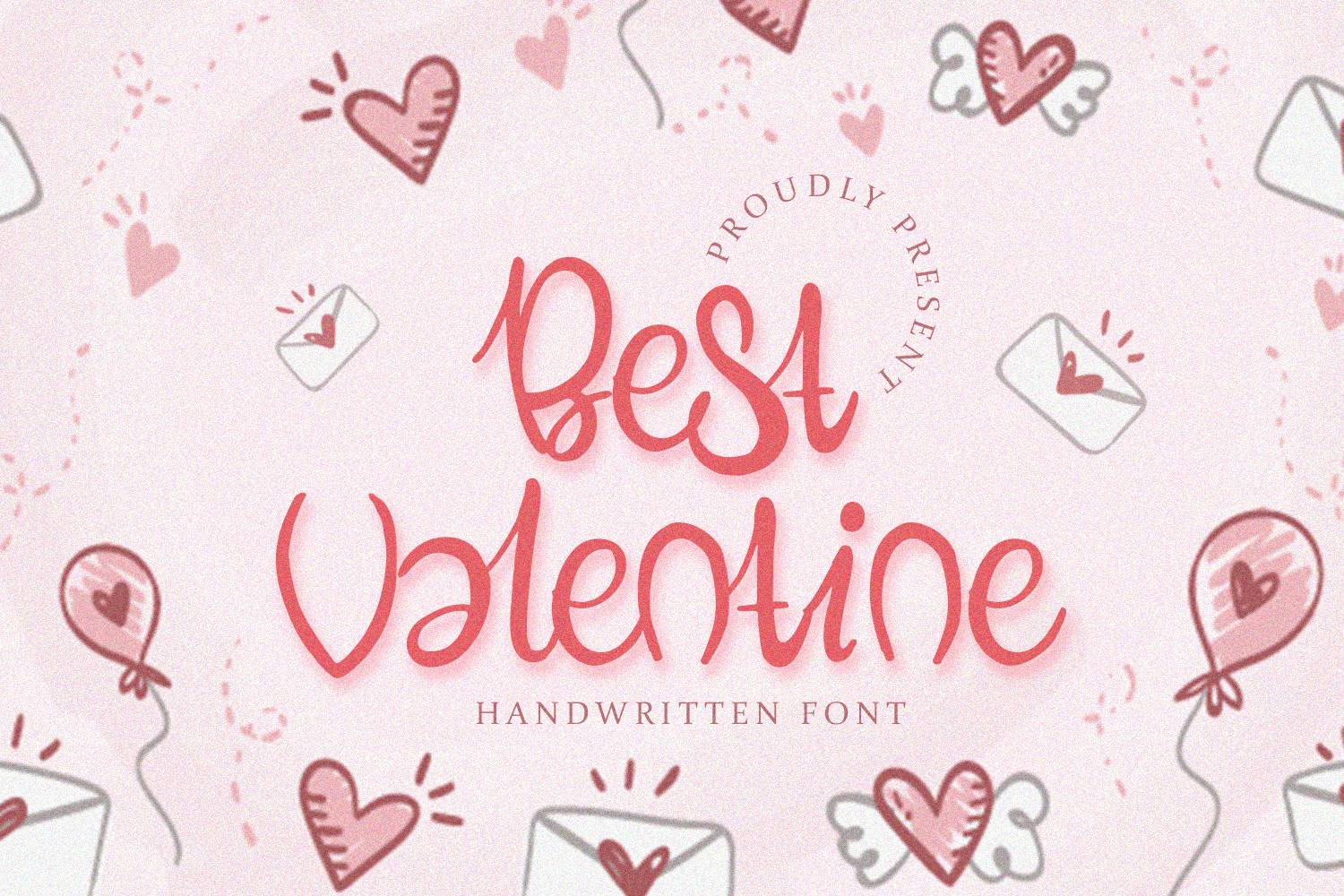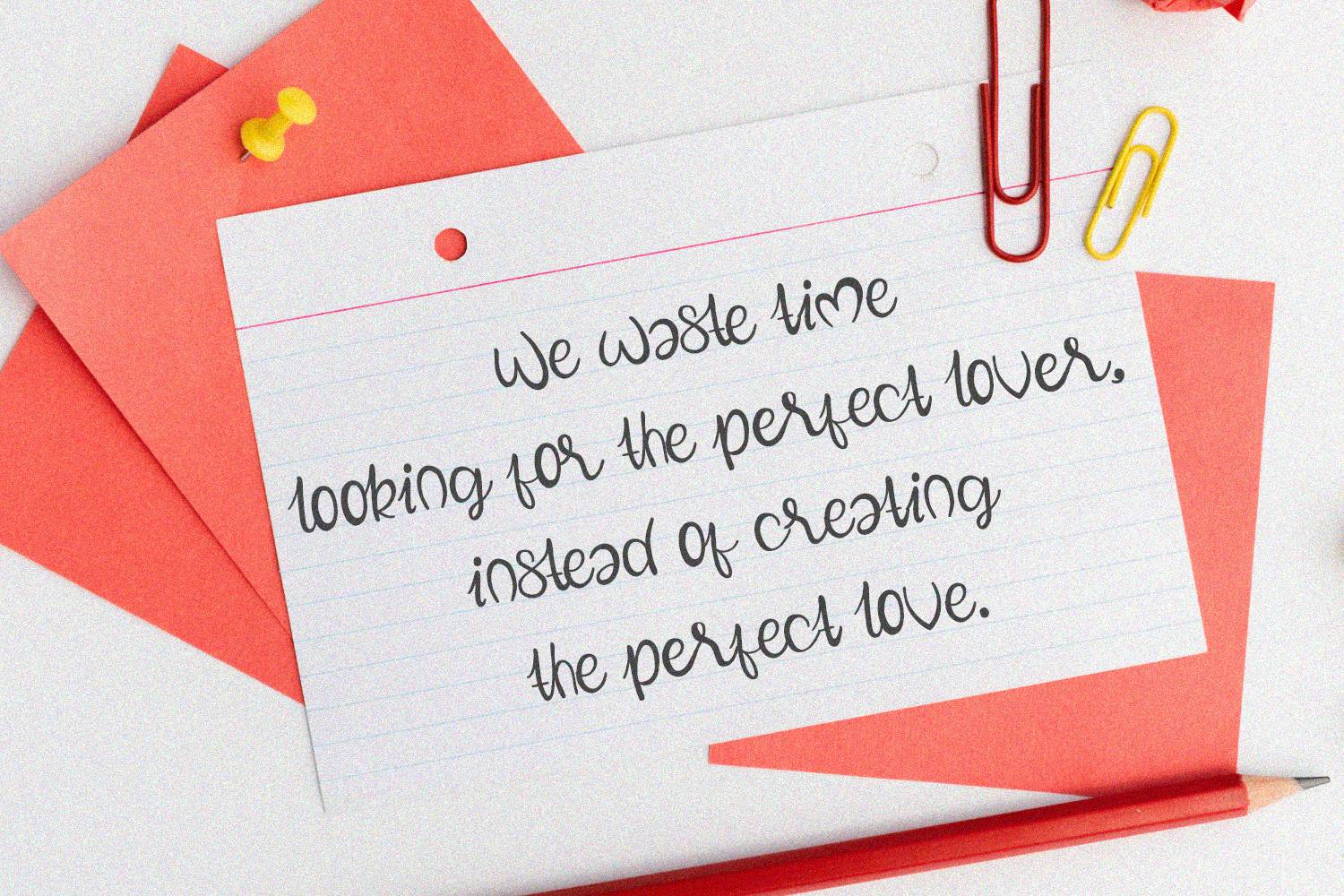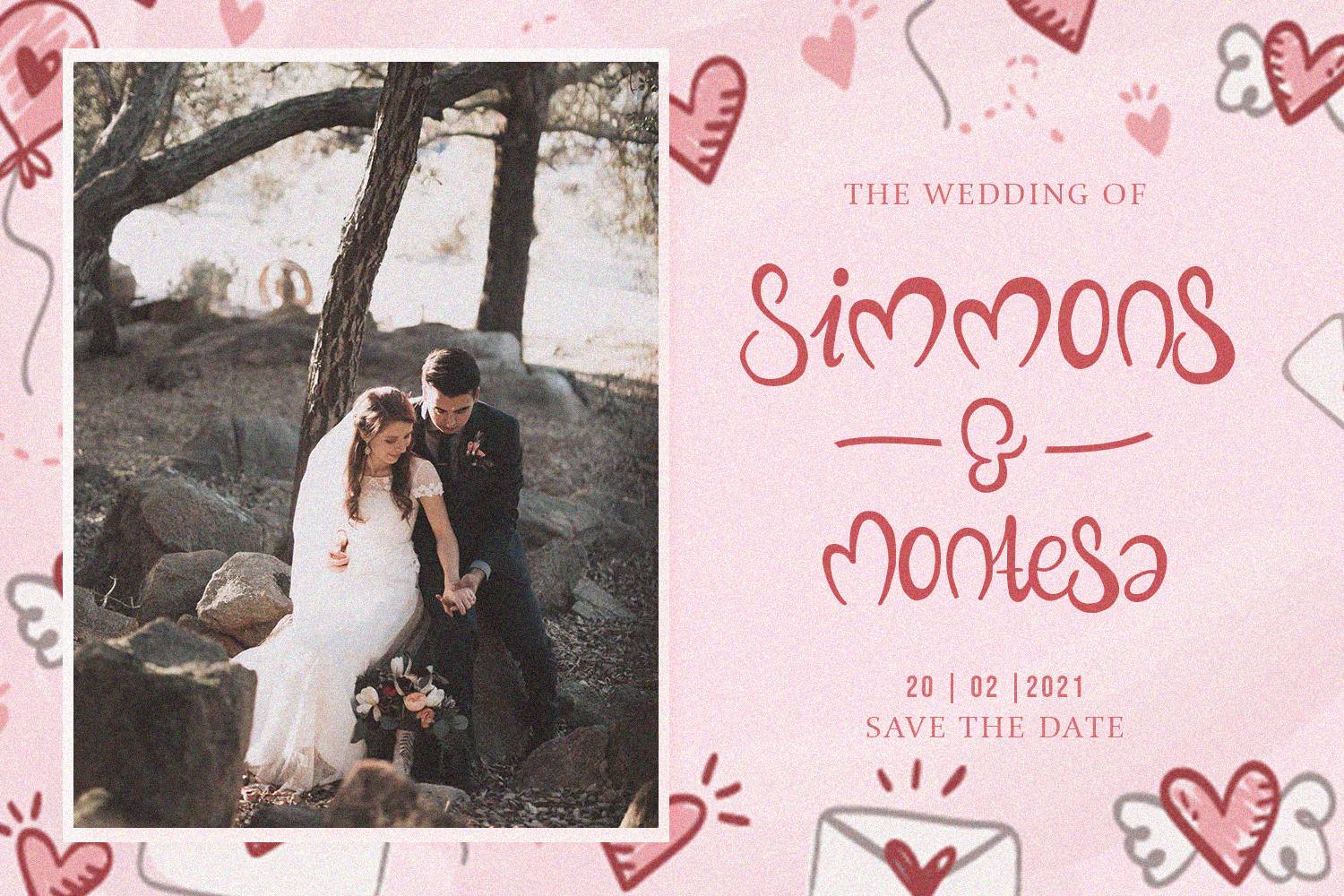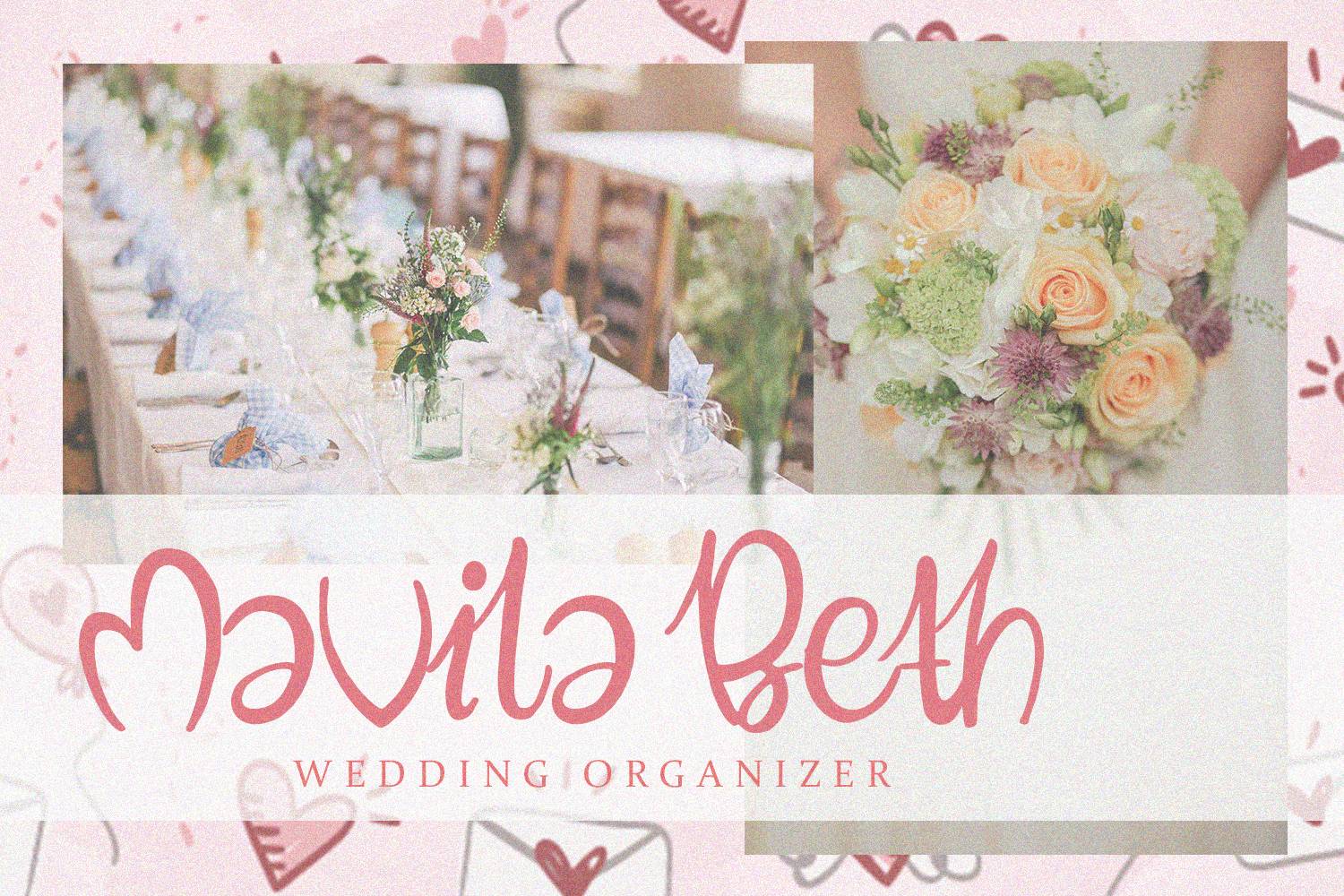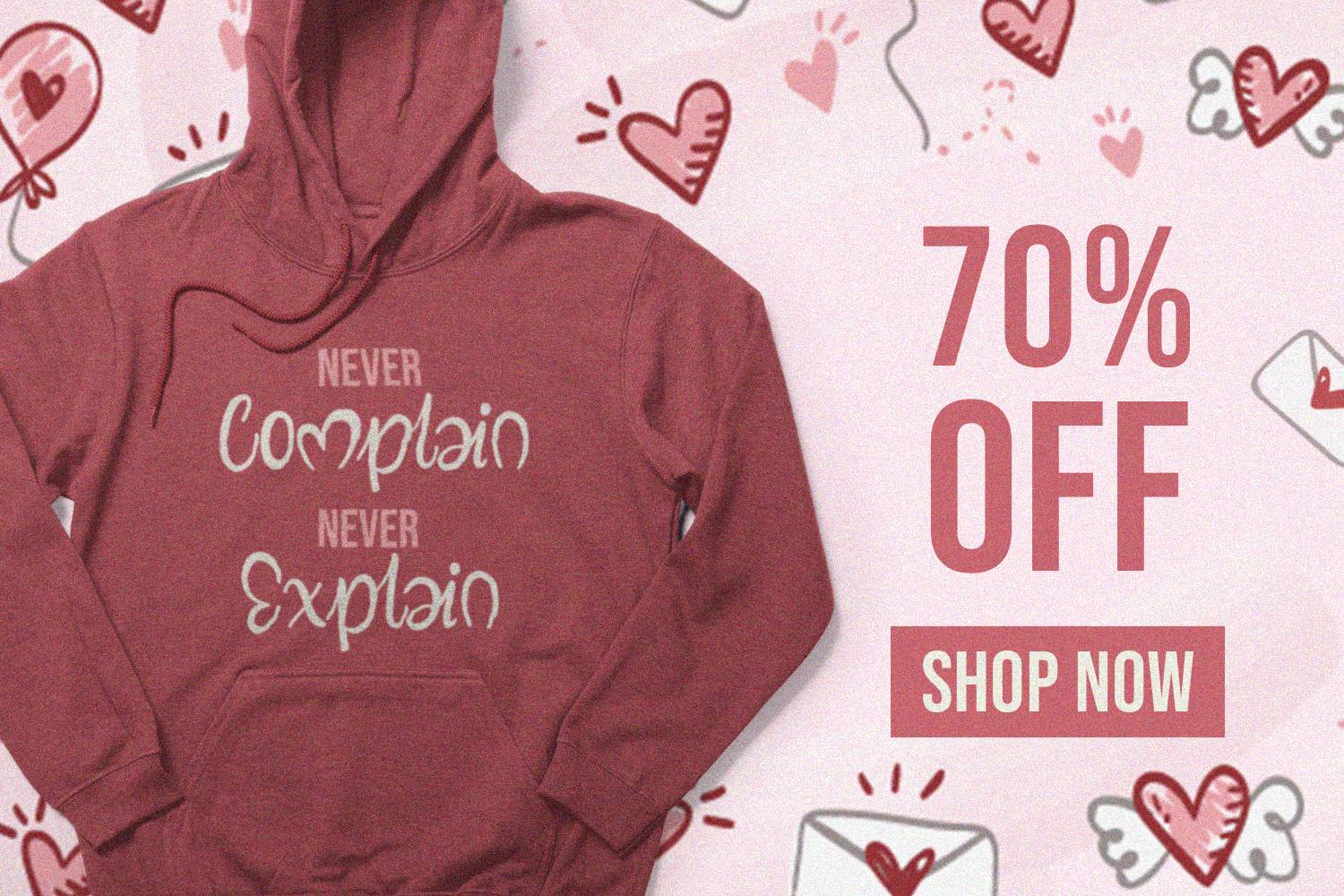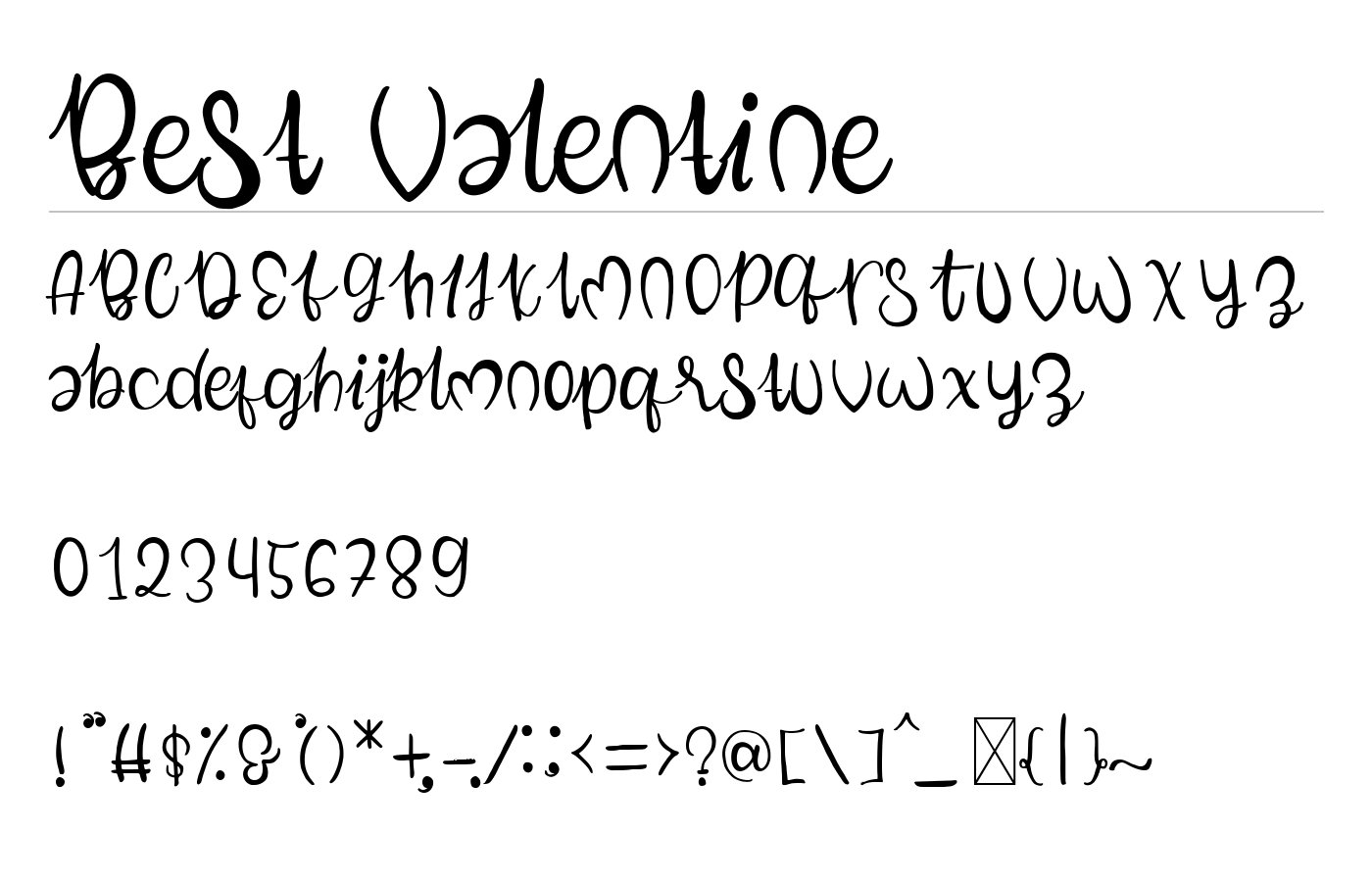
Best Valentine Font is a playful and whimsical handwritten script with a casual, organic feel. Its tall, narrow letterforms and unique quirky details make it perfect for adding a personal, charming touch to invitations, greeting cards, and creative branding projects that seek a fun and approachable vibe.
Best Valentine Font
About Best Valentine Font
| Font family | Best Valentine Font |
| Release date | 2020-12-17 |
| Designer | Alpaprana |